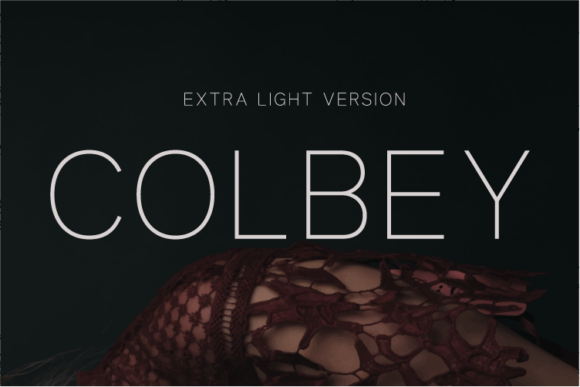
Discover the Perfect Balance: Colbey Extra Light Font
As a designer, have you ever found yourself stuck on a project, searching for that perfect font to bring your vision to life? You’ve scrolled through countless options, but nothing seems quite right. That’s when you stumble upon the Colbey Extra Light Font, and suddenly, everything clicks into place.
This elegant contemporary sans serif font is more than just a pretty face – it’s a thoughtful blend of clean lines, soft edges, and stylized geometry. Designed to harmonize beautifully with both text and headlines, Colbey Extra Light Font is the perfect choice for branding, logos, web design, and so much more.
For designers, the Colbey Extra Light Font is a valuable addition to any toolkit. Its versatility and timeless appeal make it an excellent choice for creating visually stunning and professional-looking designs that leave a lasting impression.
Colbey Extra Light Font Key Features
- Font Family: Colbey Extra Light, a high-quality sans-serif font designed for modern typography.
- Unique Characteristics: Colbey Extra Light features a sleek, modern design with subtle rounded edges, making it perfect for corporate branding, digital products, and editorial content.
Colbey Extra Light Font Review
I recently had the chance to work with the Colbey Extra Light Font, and I must say, it’s a beautiful addition to any design project. ✨ The font’s light weight and airy feel make it perfect for creating a sense of elegance and sophistication. It’s also highly legible, even at small font sizes, which is a major plus.
Some of the things that I appreciate about Colbey Extra Light include:
- Its versatility – it works well for both headings and body text
- Its unique character set, which adds a touch of personality to any design
- Its seamless integration with other fonts and design elements
- The font may not be suitable for use in low-contrast designs, as it can be difficult to read in certain lighting conditions
- It may not be the best choice for titles or headings that need to stand out in a busy design
- Some users may find the font’s light weight to be too subtle or lacking in impact
Overall, I would recommend the Colbey Extra Light Font to designers looking to add a touch of sophistication and elegance to their projects. With its unique character set and high legibility, it’s a great choice for a wide range of design applications.
Getting the Most Out of Colbey Extra Light Font
For optimal results, pair the Colbey Extra Light Font with bold fonts to create a visually appealing contrast. Use it for headings, titles, and short paragraphs to create a clean and modern design.
The Colbey Extra Light Font is ideal for:
- Modern branding and identity design
- Business and corporate presentations
- Web design and user interface (UI) elements